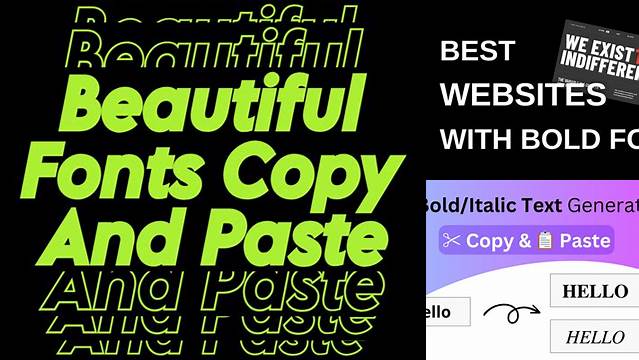
Bold Fonts: Copy & Paste 100 Styles
Hey guys! Ever find yourself needing a quick way to make text pop? Whether it's for a social media post, a presentation, or just spicing up a document, bold fonts can be your best friend. In this article, we're diving into a treasure trove of 100 different bold fonts that you can easily copy and paste. No need to download anything โ just grab your favorite style and go! This is all about making your text stand out, creating emphasis, and adding a touch of flair to your messages. We'll explore various font styles, from classic and clean to quirky and creative, ensuring there's something for everyone. Plus, you'll learn a few handy tips on when and how to use these fonts effectively. Letโs get started and transform your ordinary text into something extraordinary with these amazing copy and paste options! Get ready to boost your content and make your words visually appealing with these super simple steps. Let's make your text stand out in a crowd! Are you ready to make your words shine? Let's jump in!
Why Use Bold Fonts? The Power of Emphasis
So, why bother with bold fonts anyway? Well, imagine you're scrolling through social media, and a post catches your eye. What made it stand out? Often, itโs the use of bold text. Bold fonts are a simple, yet powerful way to draw attention to specific words or phrases. They create visual hierarchy, guiding the reader's eye to the most important information. Think of it like highlighting in a textbook โ it helps you focus on the key takeaways. Using bold text effectively can significantly improve the readability and impact of your content. When used sparingly, bold fonts can emphasize keywords, call-to-actions, or important details that you want your audience to remember. They can also create a more engaging reading experience, making your content more dynamic and visually appealing. By strategically incorporating bold text, you're essentially controlling how your audience perceives and interacts with your message. This visual cue helps break up large blocks of text, making it easier for the reader to scan and digest information quickly. It's all about creating that instant impact! Now, let's not forget the emotional aspect. Bold fonts can also convey a sense of confidence, authority, or even excitement. The right bold font can completely change the tone of your message. For example, a bold, clean sans-serif font might convey professionalism, while a playful, rounded font could add a touch of fun. The choice depends on your brand and the message you're trying to communicate. Remember, you want to keep your readers engaged. You can quickly convey your message using bold fonts! Ready to make your content stand out? Let's do this!
Copy and Paste: Your Instant Font Solution
Alright, letโs get to the good stuff! The beauty of this list of bold fonts is that you can simply copy and paste. No complicated software, no font installations โ just pure, instant gratification. This method is super convenient because it works across various platforms, including social media, messaging apps, document editors, and more. All you need is your chosen bold font and a place to paste it. The process is straightforward: you select the text, copy it, and then paste it into your desired location. Boom! Your text is now bold, and your message is instantly more eye-catching. This is perfect for those quick updates, catchy captions, or important announcements that you want to make sure everyone sees. This is so easy, even if you arenโt tech savvy, you can still make your content pop! This convenience makes it an ideal solution for anyone looking to add a touch of visual flair without the hassle of advanced formatting options. Whether you're a social media guru, a student, or someone who just wants to make their messages stand out, this is a game-changer. Let's dive into the font list and make your content stand out!
Font Styles and Variations
Get ready for a massive variety of bold fonts to choose from! Here's the list to get you started. We've got a little bit of everything for everyone. You can choose from styles such as sans-serif, serif, monospace, and even some decorative fonts. No matter your preference, we have the perfect font for you!
Sans-serif Bold Fonts
These fonts are known for their clean and modern appearance, perfect for a sleek look.
Serif Bold Fonts
These fonts add a touch of elegance and are great for a classic, sophisticated feel.
Monospace Bold Fonts
Perfect for a retro or technical look, where each character has the same width.
Cursive Bold Fonts
Add a touch of elegance and flair with these handwritten-style fonts.
More Bold Fonts
Tips for Effective Use
Okay, so you have these amazing bold fonts at your fingertips. But how do you use them effectively? Here are a few tips to get you started:
- Use sparingly: Donโt go overboard! Too much bold text can be overwhelming and actually make your content less readable. Use it strategically to highlight key words or phrases. Think of it as seasoning โ a little bit goes a long way. Overusing bold text can also make your content look cluttered and unprofessional. Stick to emphasizing the most important points to maintain clarity and impact.
- Consider your audience: What tone do you want to set? A clean, modern sans-serif font might be perfect for a professional setting, while a playful, rounded font could be great for social media. Know your audience and tailor your font choices to resonate with them.
- Test it out: Before you commit to a style, try it out in a few different contexts. See how the bold text looks against different backgrounds and with different font sizes. This will help you make sure your chosen font is legible and visually appealing.
- Mix and match: Don't be afraid to combine different bold font styles! You can use a serif font for headings and a sans-serif for body text, or vice versa. Mixing fonts can add visual interest and make your content more dynamic.
- Maintain Consistency: Once you've chosen a font style, stick to it throughout your content. Consistency creates a more professional and cohesive look. This will help your audience easily identify and remember your key messages.
By following these simple guidelines, you can harness the power of bold fonts to create engaging content that grabs attention and delivers your message effectively. Let your words shine!
Conclusion: Boldly Go Forth!
There you have it, guys! A collection of bold fonts ready for your creative endeavors. Remember, the key to using these fonts effectively is to be strategic and mindful of your audience. Now, go forth and make your text bold! Happy creating!